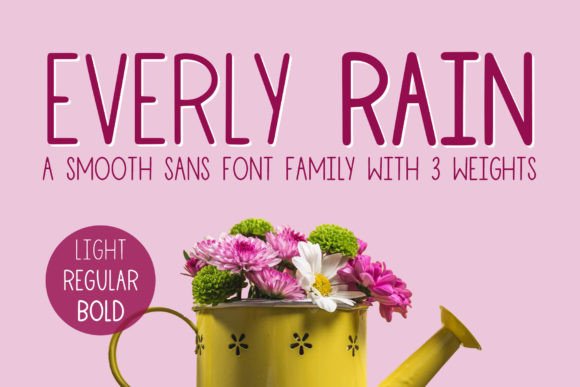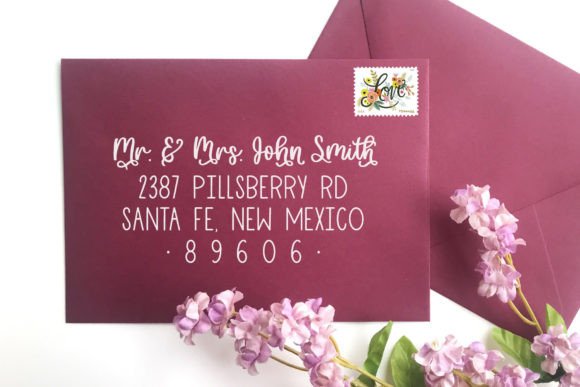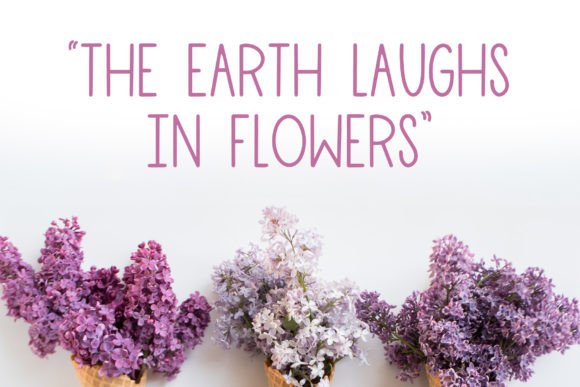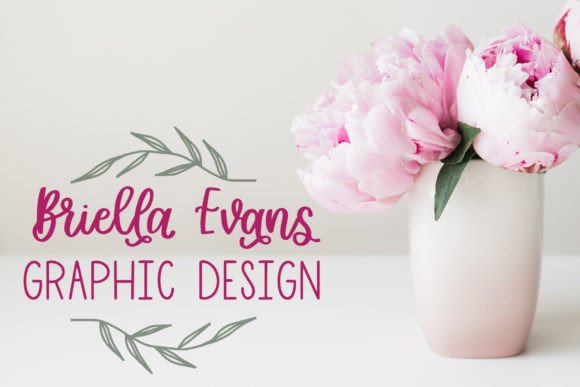
Everly Rain Font: A Modern & Cute Sans Serif for Branding + DIY Projects
About the Everly Rain Font
From logos to headlines, the Everly Rain Font is the perfect choice for making a lasting impression. Everly Rain is a smooth all-caps sans serif font. It’s a perfect complimentary font for all of your design needs!
Its clean lines and consistent weight make Everly Rain ideal for headlines, logos, and short impactful phrases in branding materials and posters. The all-caps style lends itself well to a modern and slightly bold aesthetic, creating a strong visual impact. However, its limited character set and lack of lowercase letters make it unsuitable for body text or long-form content. Avoid using it in UI applications or situations requiring extensive readability.
Pairing Everly Rain with a complementary sans-serif like Open Sans for body copy provides a strong yet balanced design. For a more refined feel, consider pairing it with a classic serif like Garamond or a delicate script font like Great Vibes for accents. The choices depend on the desired mood—Open Sans offers a clean, modern pairing, while Garamond introduces a touch of traditional elegance.
Everly Rain projects a confident, modern personality. It suits brands aiming for a clean, sophisticated, and slightly assertive image. Think minimalist product packaging, technology companies, or brands focused on a premium feel.